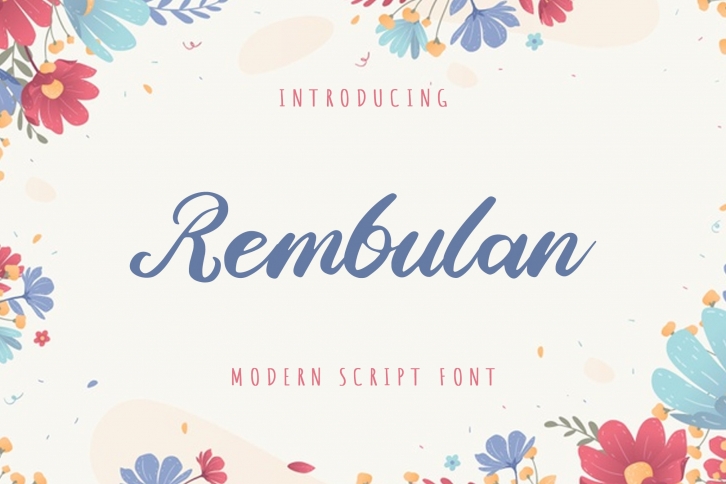
Rembulan is a beautiful font that was designed by dapiyupi. It's a great choice for designers and creatives who need such a font. It was released on May 29, 2021 and the file size is 3.65 MB. Rembulan may give a more youthful, expressive and casual look to your project. It is a very beautiful, refined, elegant, and high-quality font.